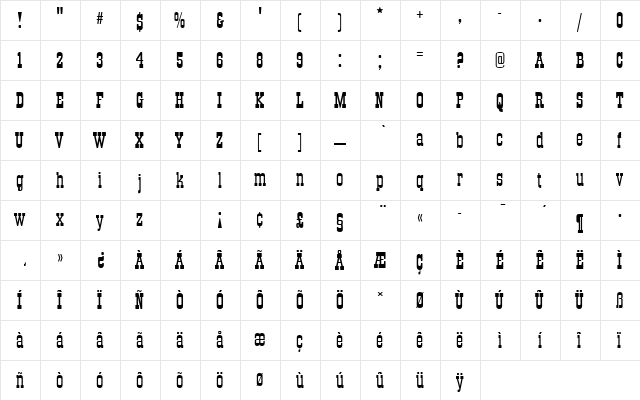
OldTowneNo536DRo1 Regular
Design Context for OldTowneNo536DRo1 Typeface
OldTowneNo536DRo1 takes a measured approach to typography — its balanced proportions and neutral character make it a reliable workhorse for both digital and print work.